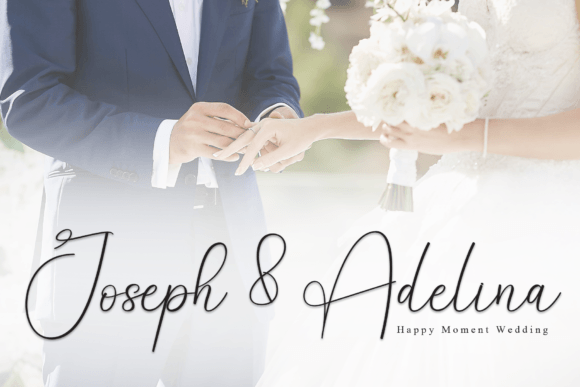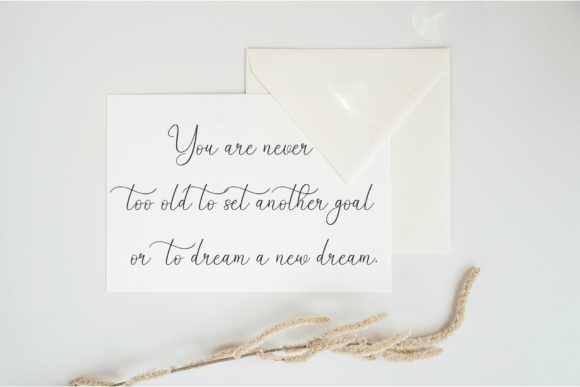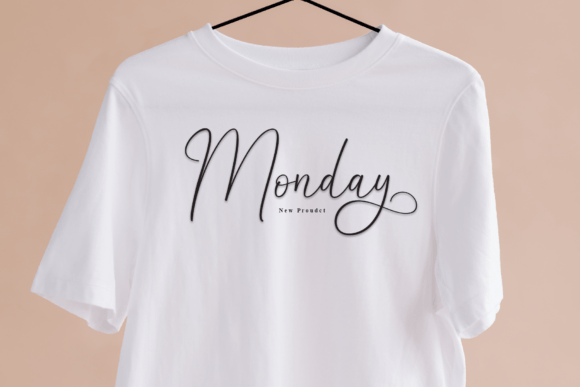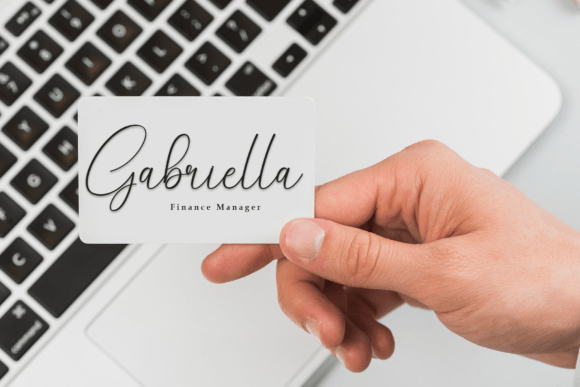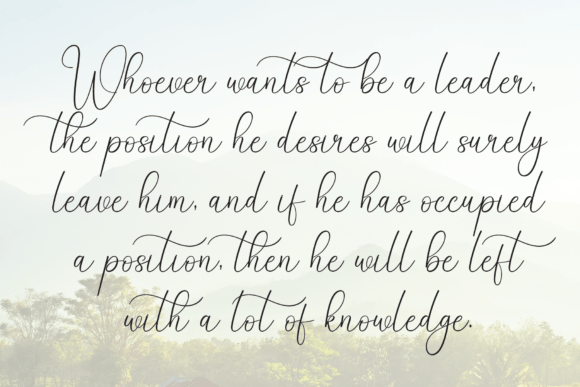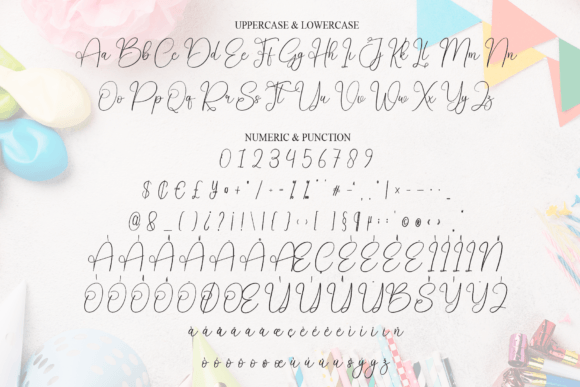
Introducing Birthday Font: The Elegant Handwritten Script Font for Your Designs
Are you looking for a font that adds a touch of elegance and sophistication to your designs? Look no further than Birthday Font, a beautiful handwritten script font that is perfect for invitations, logos, branding, and more. With its flowing, graceful curves and delicate strokes, Birthday Font brings warmth and creativity to any project.
The Characteristics of Birthday Font
Birthday Font is a stylish handwritten script font that is designed to exude elegance and charm. Its flowing, graceful curves make it perfect for designs that require a personal and sophisticated touch. The font’s delicate strokes add a level of warmth and creativity to your projects, making it ideal for a variety of design applications.
One of the key characteristics of Birthday Font is its versatility. It can be used for a range of design projects, from invitations and greeting cards to logos and branding. The font’s elegant and sophisticated look makes it perfect for designs that require a high level of professionalism and style.
Uses for Birthday Font
Birthday Font is a versatile font that can be used for a variety of design projects. Here are some of the most popular uses for this beautiful font:
- Invitations: Birthday Font is perfect for creating elegant and sophisticated invitations for weddings, birthday parties, and other special occasions.
- Logos and Branding: The font’s unique and stylish look makes it ideal for logos and branding projects that require a high level of professionalism and style.
- Greeting Cards: Birthday Font can be used to create beautiful and heartfelt greeting cards for a variety of occasions.
- Stationery: The font’s elegant look makes it perfect for creating stylish and sophisticated stationery, including letterheads, envelopes, and more.
Benefits of Using Birthday Font
There are many benefits to using Birthday Font for your design projects. Here are some of the most significant advantages:
- Elegance and Sophistication: Birthday Font adds a level of elegance and sophistication to any design project, making it perfect for designs that require a high level of professionalism and style.
- Versatility: The font’s versatility makes it suitable for a range of design projects, from invitations and greeting cards to logos and branding.
- Creativity: Birthday Font’s unique and stylish look inspires creativity and can help you to create unique and eye-catching designs.
- Easy to Read: The font’s clear and delicate strokes make it easy to read, even at small sizes.
Birthday Font is a beautiful and elegant handwritten script font that is perfect for designers and crafters looking to add a touch of sophistication and style to their designs. With its flowing, graceful curves and delicate strokes, Birthday Font brings warmth and creativity to any project. Whether you’re creating invitations, logos, branding, or more, Birthday Font is a versatile and inspiring font that is sure to become a favorite in your design toolkit.